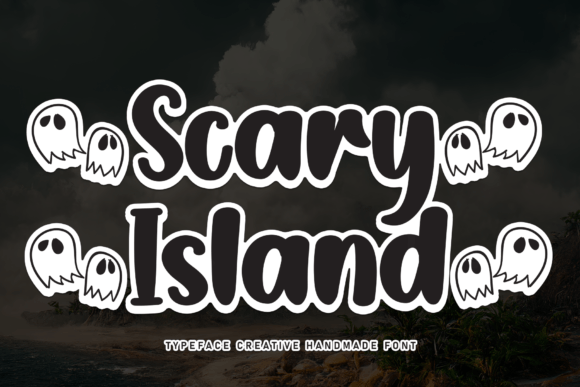
Hold on tight thrill-seekers, for we're about to take you on a wild adventure with the extraordinary Scary Island Font! A creation of the renowned Roronoa zoro.S.P.D, this script font is not for the faint of heart. Prepare to be captivated by its alluring curves, wild strokes, and a personality that's as unique as your own.
Picture this: the thrill of the open road, hair dancing in the wind as you navigate through breathtaking landscapes. The Scary Island Font captures that same sense of freedom and adventure, inviting you to embark on creative journeys like never before. Its untamed spirit is perfect for those who crave individuality and a touch of the unexpected.
With its impressive versatility, Scary Island Font effortlessly adapts to a multitude of projects. Whether you're a seasoned designer crafting eye-catching posters or a budding artist seeking to add character to your digital creations, this font will be your trusty companion. Its clean, relaxed style seamlessly blends into a variety of designs, making it the perfect choice for any occasion.
Let your imagination run wild as you explore the endless possibilities of the Scary Island Font. Create posters that ignite imaginations, design social media posts that capture attention, or craft unique logos that stand out from the crowd. The possibilities are limitless, just like the adventures you're about to embark on with this remarkable font.